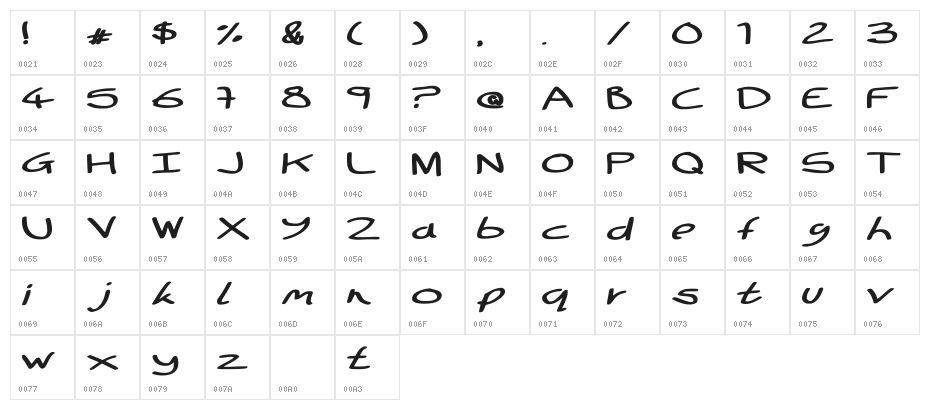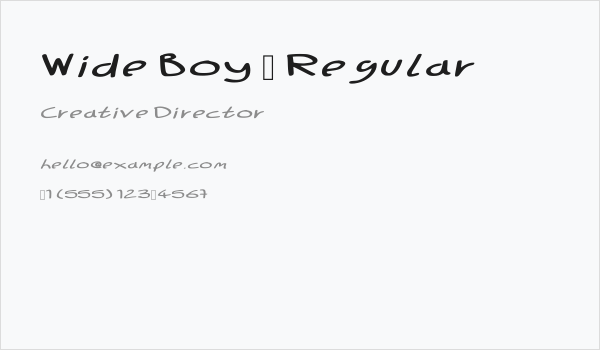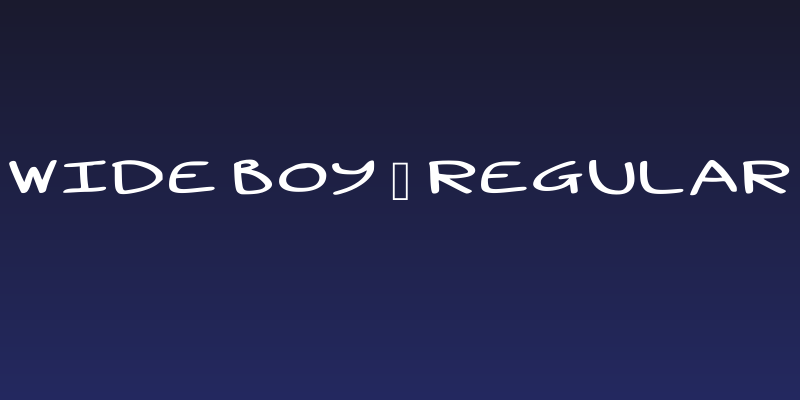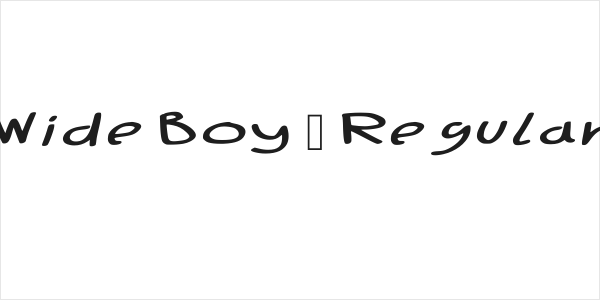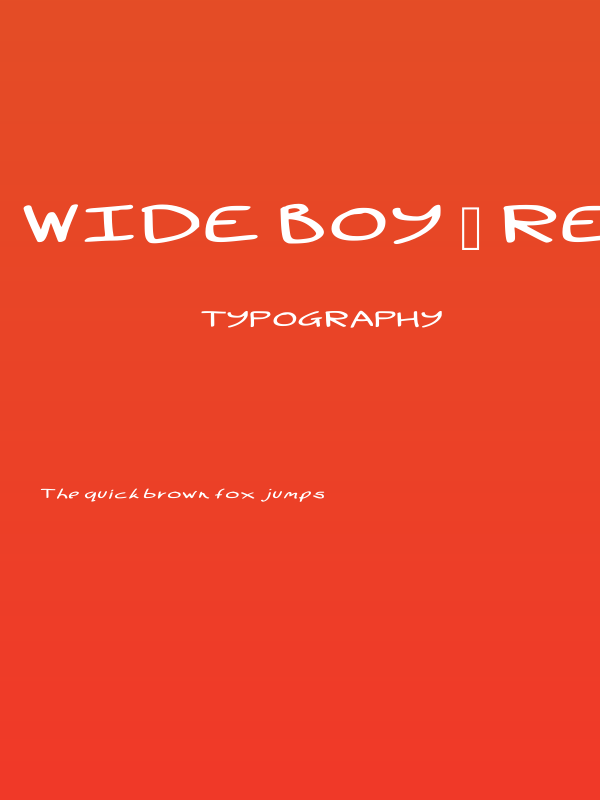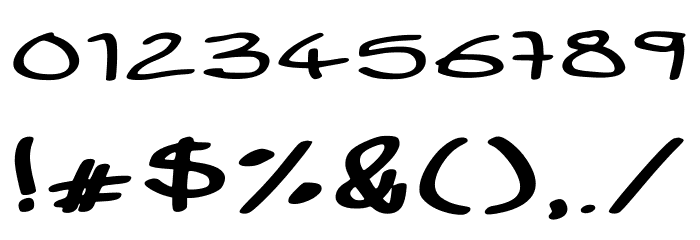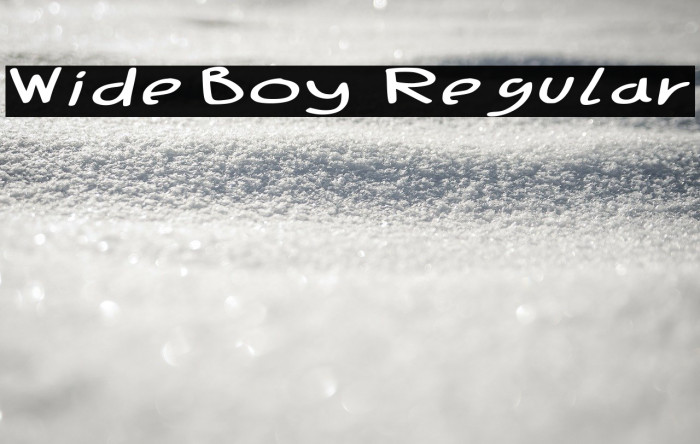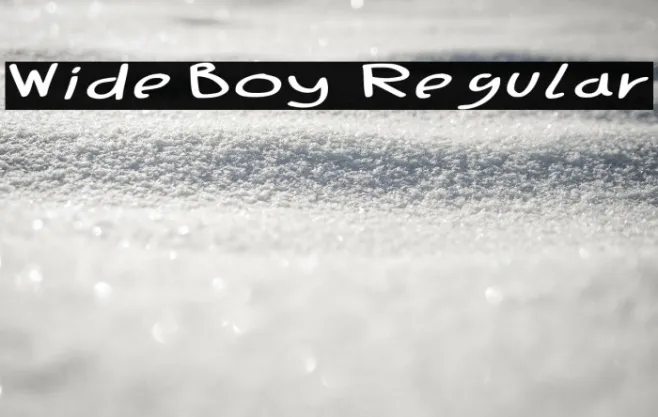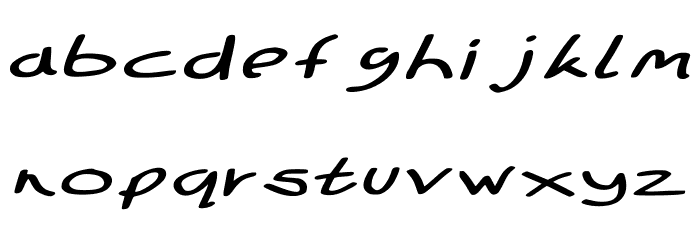
Wide Boy - Regular Font
Wide Boy - Regular Description
This font features a playful and casual handwritten style, characterized by its smooth, flowing curves and slightly irregular letterforms. The uppercase and lowercase letters maintain a consistent rhythm, giving it a friendly and approachable appearance. The numerals and special characters are designed to match the overall style, ensuring a cohesive look across all text. The strokes are moderately thick, providing good readability while retaining a relaxed aesthetic. This font is ideal for projects that require a personal touch, such as invitations, greeting cards, or informal branding.
| Proposed Projects | Ideal for invitations, greeting cards, informal branding, and personal projects. |